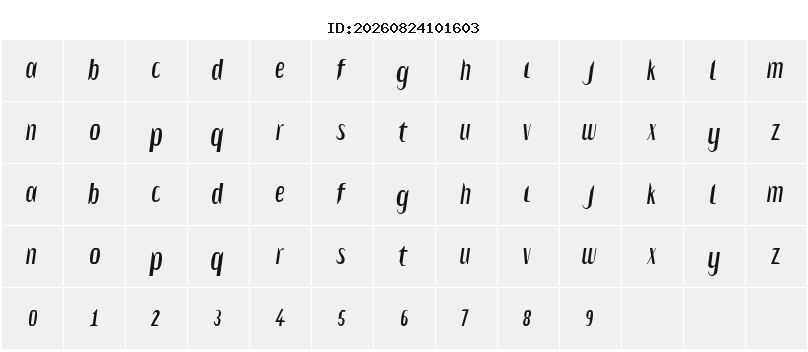
Salvesen Preview
About Salvesen.ttf
Salvesen.ttf is a modern, elegant sans-serif font designed for ultimate readability and visual harmony. Perfect for branding, headlines, web design, and print materials.